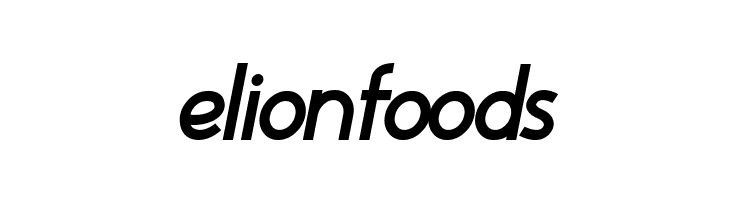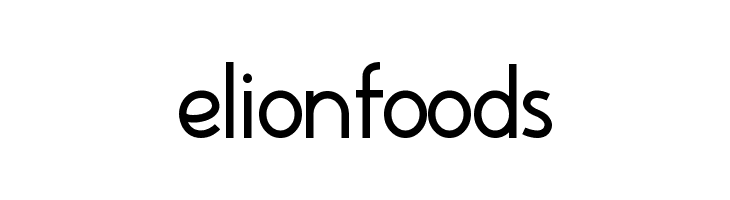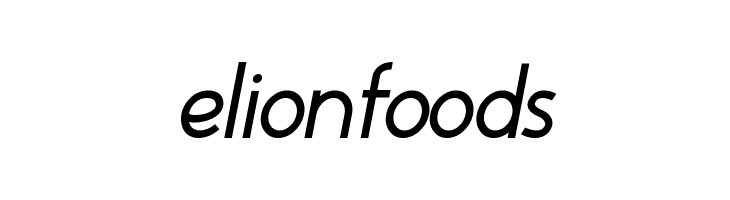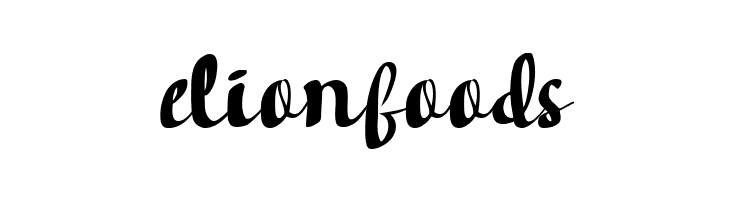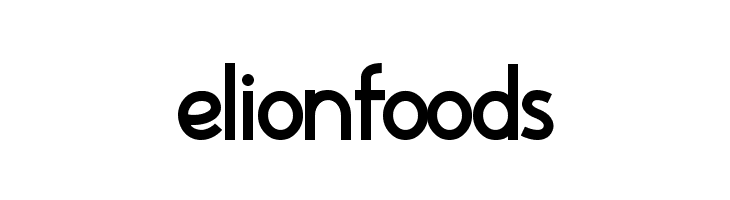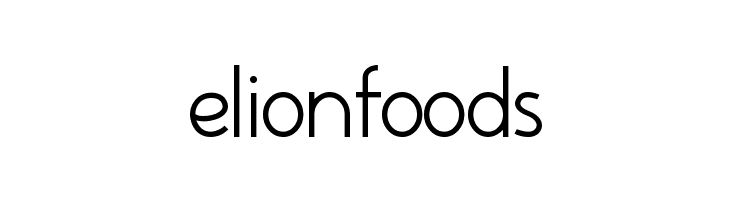
A modern script font with elegant, flowing cursive strokes.
A modern, lovely script font with an elegant italic style.
A bold, expressive script font with flowing, cursive letterforms.
An elegant, flowing script font with a handwritten style.
A cursive, handwritten style font with elegant, flowing strokes.
A modern sans-serif font with clean lines and uniform strokes.
A bold, modern sans-serif font with clean lines and balanced proportions.
A modern, italicized font with medium contrast and smooth curves.
A modern, light sans-serif font with a clean and minimalist design.